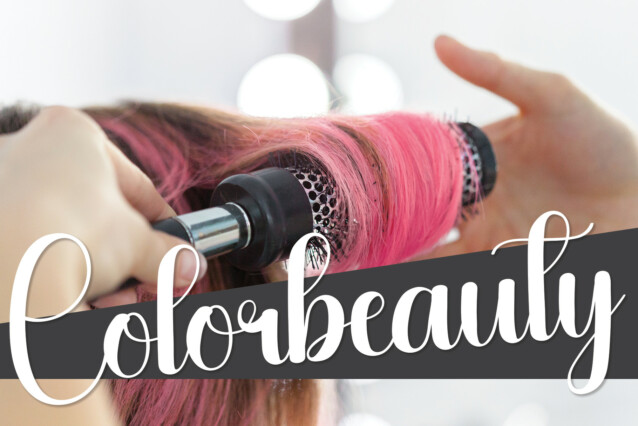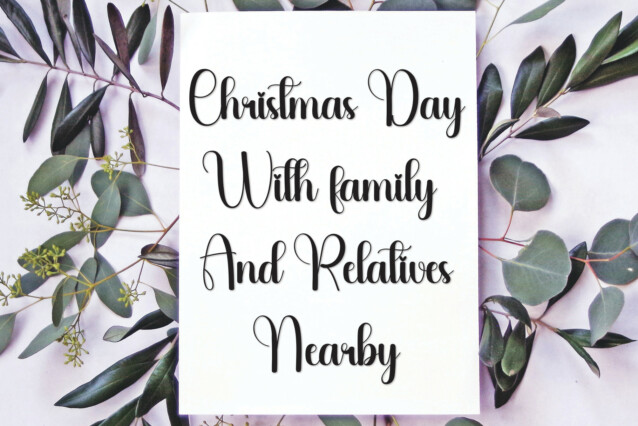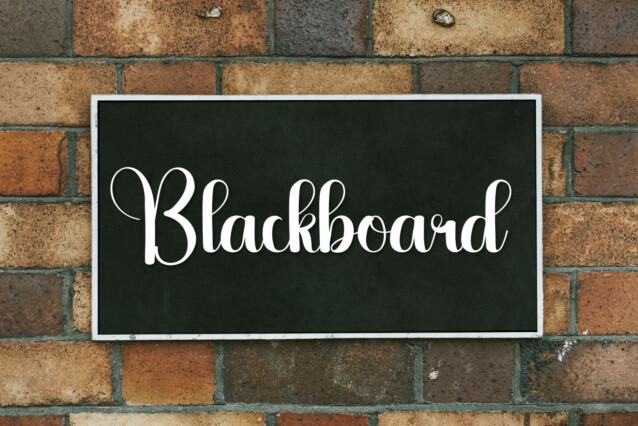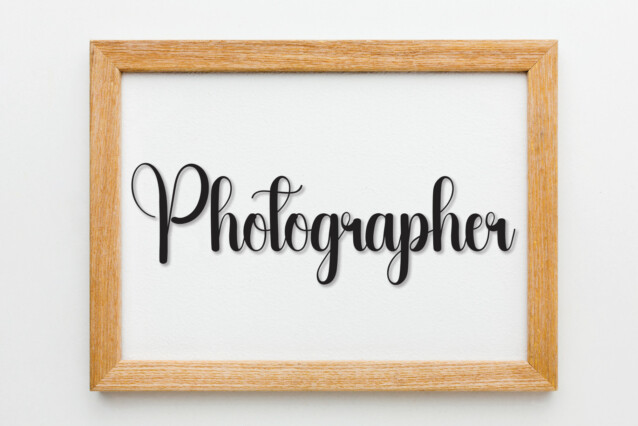
Clothes Script Font
Clothes Script Font is a romantic and sweet calligraphy typeface with characters that dance along the baseline. It will add a luxury spark to any design project that you wish to create!